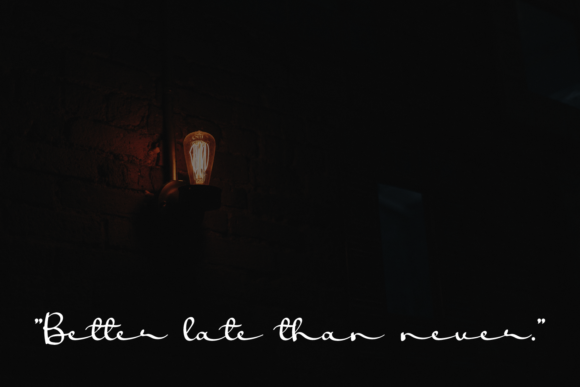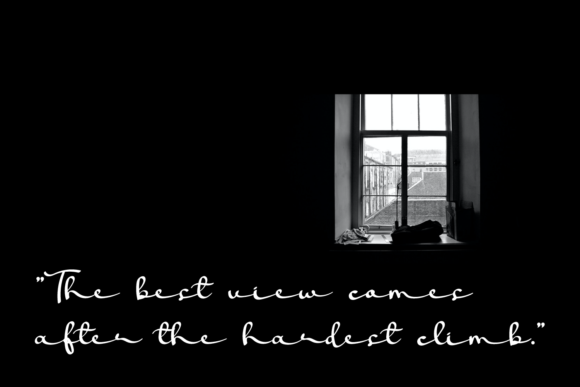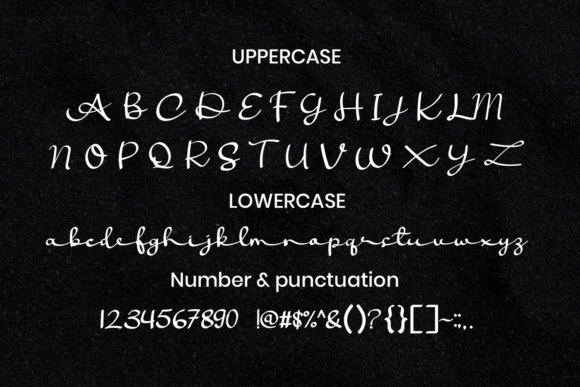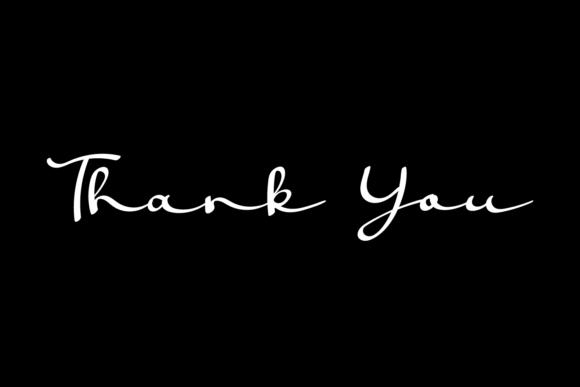
Discover the Elegance of Antikuman Font: Elevate Your Designs with a Timeless Touch
In the world of typography, few fonts manage to capture the essence of elegance and timelessness as effectively as the Antikuman font. This beautifully crafted, flowing handwritten font is designed to add a touch of sophistication to any project, making it a perfect choice for designers and crafters looking to create something truly special. With its incredibly distinct style, Antikuman is not just a font; it’s an experience waiting to be unleashed on your favorite projects.
The Unique Charm of Antikuman
Antikuman’s charm lies in its elegant touch, which sets it apart from more conventional fonts. Its flowing lines and curves are meticulously designed to provide a sense of movement and fluidity, making it perfect for projects that require a dynamic yet refined aesthetic. Whether you’re working on a branding project, a website design, or crafting a beautiful piece of art, Antikuman brings a level of sophistication that is hard to match.
Key Features of Antikuman Font
- Elegant and Flowing Design: Antikuman’s design is characterized by its elegant flow, making it perfect for creating visually stunning text.
- Timeless Style: Unlike trends that come and go, Antikuman’s style is timeless, ensuring your designs remain relevant for years to come.
- Versatility: This font can be used across a wide range of projects, from digital designs to print materials, offering immense versatility.
- Distinctive Character: Antikuman has an incredibly distinct character that can help your designs stand out in a crowded marketplace.
Why Choose Antikuman for Your Projects?
Choosing Antikuman for your projects is a decision that can significantly elevate your design’s impact. Here are a few reasons why designers and crafters are falling in love with this beautiful font:
- Emotional Connection: The elegant and flowing nature of Antikuman helps create an emotional connection with the audience, making your message more impactful.
- Professionalism: The timeless style of Antikuman lends a level of professionalism to your designs, making it suitable for projects where credibility is key.
- Creativity: With Antikuman, your creative possibilities are endless. Its unique style encourages experimentation and creativity, allowing you to push the boundaries of design.
How to Use Antikuman Effectively in Your Designs
To truly leverage the potential of Antikuman, it’s essential to understand how to use it effectively in your designs. Here are a few tips:
- Pair with Complementary Fonts: While Antikuman is stunning on its own, pairing it with complementary fonts can enhance its beauty and create visual interest.
- Experiment with Colors: Don’t be afraid to experiment with different colors. Antikuman looks great in bold colors and can also be beautifully subtle in pastel shades.
- Play with Sizes: Utilize varying font sizes to create a hierarchy of information and add depth to your design.
Antikuman is more than just a font; it’s a design statement. Its elegant touch, timeless style, and distinct character make it a valuable addition to any designer’s toolkit. Whether you’re creating a brand identity, designing a website, or working on a craft project, Antikuman offers the perfect blend of sophistication and creativity. So, fall in love with Antikuman’s unique style and use it to create spectacular designs that leave a lasting impression.
Embrace the elegance of Antikuman and discover a world of design possibilities that are as limitless as your imagination.